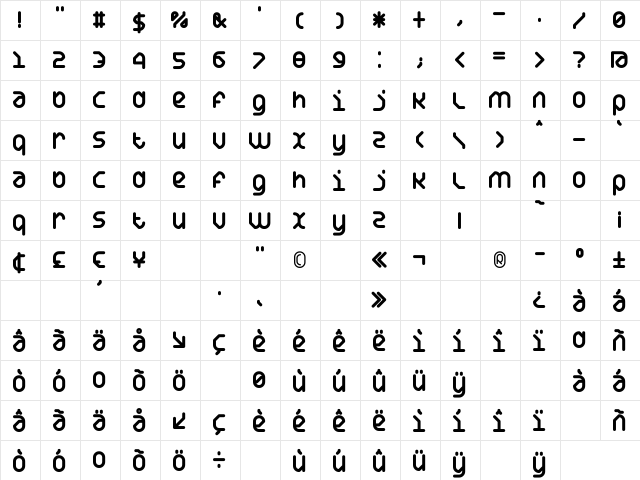
DS Yakuti65R Regular Font Preview
DS Yakuti65R Regular
DS Yakuti65R Regular Font Details
Design Context for DS Yakuti65R Typeface
DS Yakuti65R takes a measured approach to typography — its balanced proportions and neutral character make it a reliable workhorse for both digital and print work.